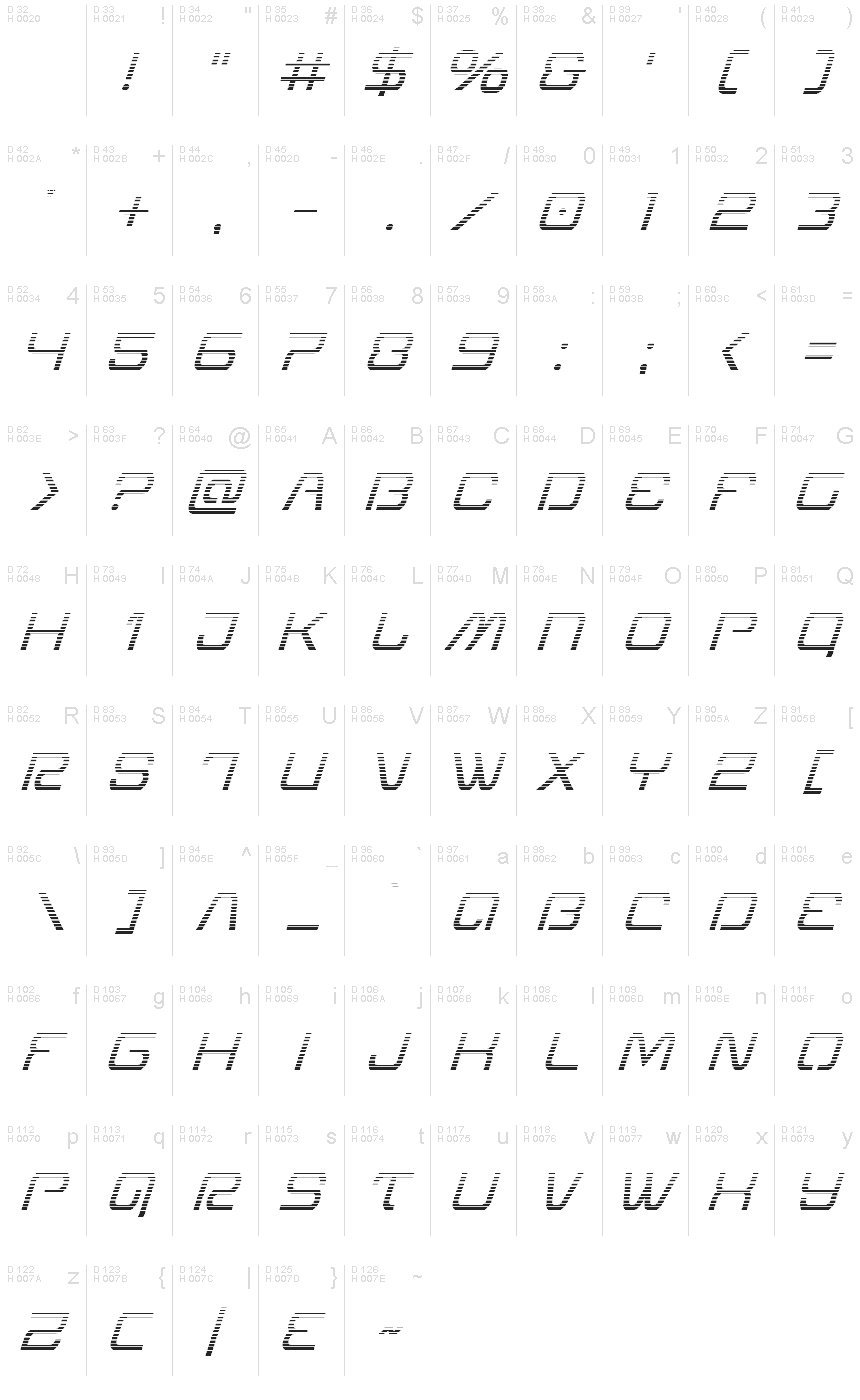
Miracle Mercury Gradient Itali
Miracle Mercury Gradient Italic font by Iconian Fonts is a futuristic display typeface with expanded width. Its retro-futuristic and geometric design features angular characters with a high-tech look which helps achieve strong visual presence. The sleek aesthetic of this free techno display font contributes to its eye-catching style and unforgettable originality.
The wide range of suggested use cases for Miracle Mercury Gradient Italic includes brand packages, product packaging, books, magazines, websites or blog titles and headers. Other projects can be movie posters or covers on one hand, or fashion items such as t-shirts or sweaters on the other hand.